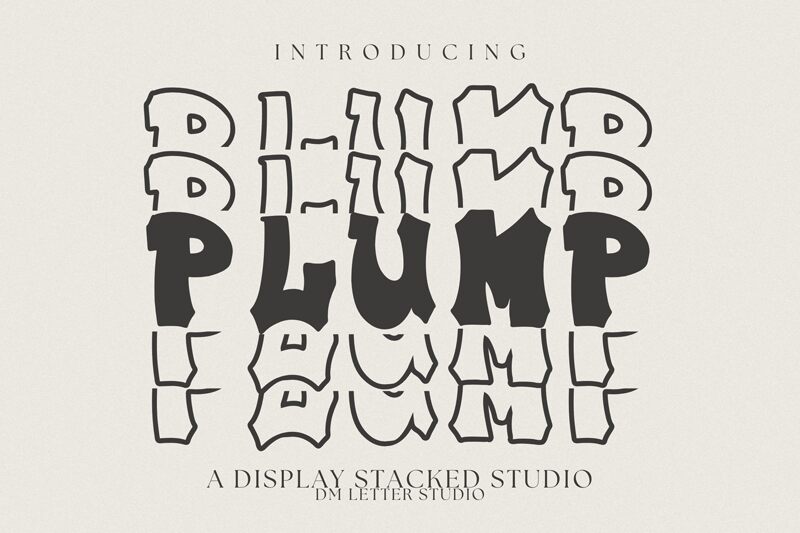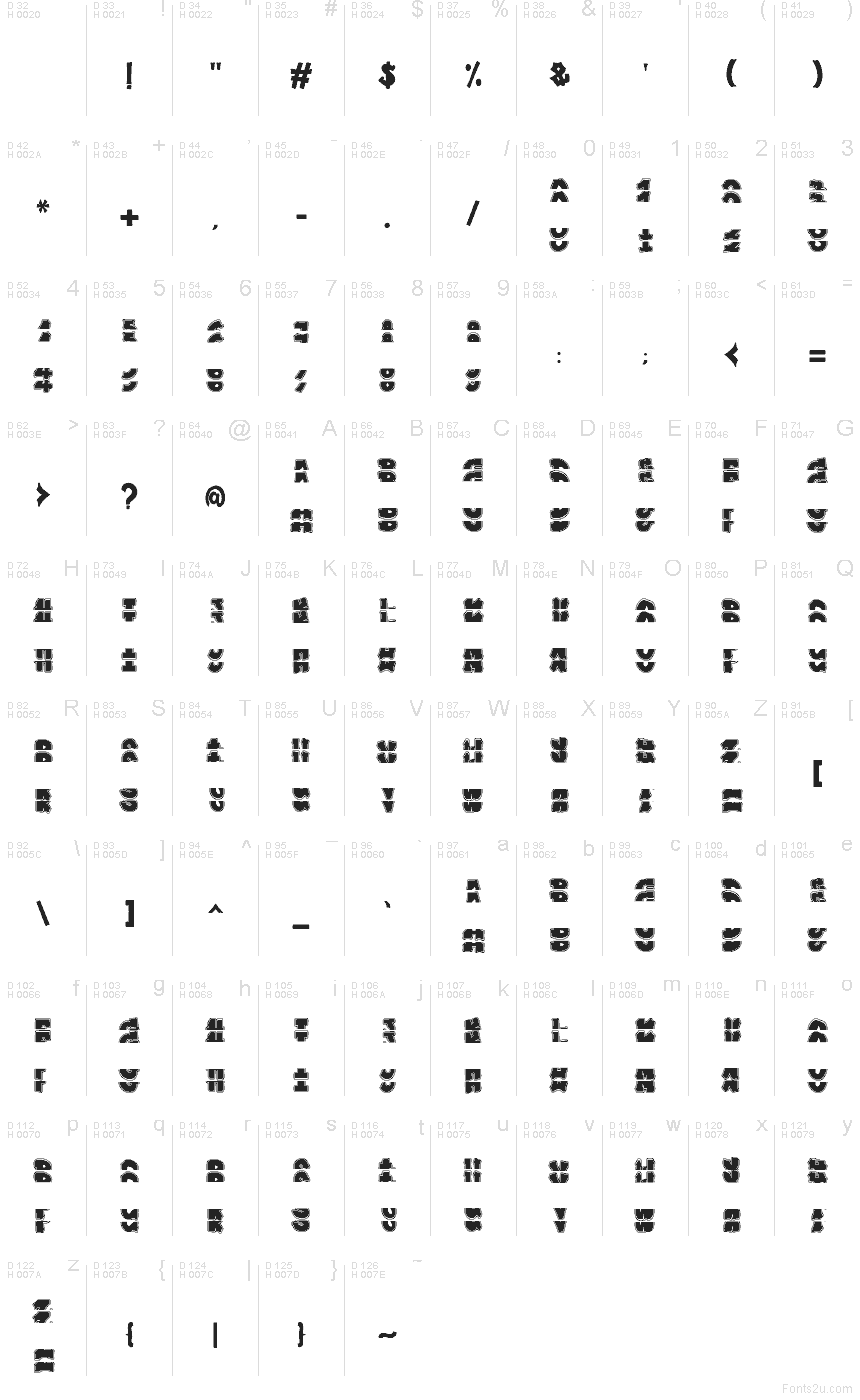
Plump Varsity Stacked Monogram
Plump Varsity Stacked Monogram font by DM Letter Studio - Dimas Prasetyo is a free decorative display typeface in the Plump family. Its chunky, blown-up letters sit on top of each other in a tight stack, wrapped in bold outlines that feel part varsity patch, part street-graffiti sticker. The shapes look soft and padded, like puffy vinyl lettering pressed onto a jacket, giving your monograms and wordmarks a loud, tactile presence even on flat screens.
Using Plump Varsity Stacked Monogram, you can punch up sports logos, team jerseys, hoodies, stickers, event posters, gaming stream graphics, and bold social headers. The compact stacked construction makes every initial set feel like a ready-made emblem, saving layout time while still looking custom. For balance, pair this free font with a very simple sans serif for body text and let Plump handle the big, shouty moments at large sizes.